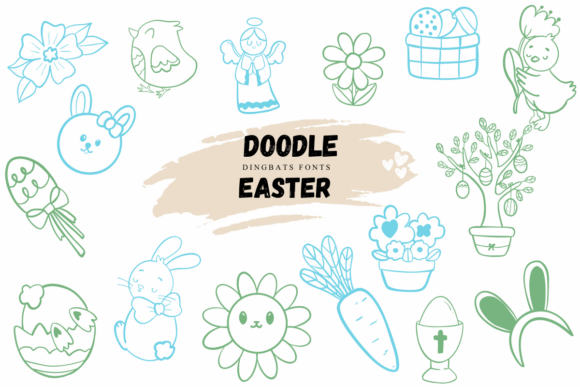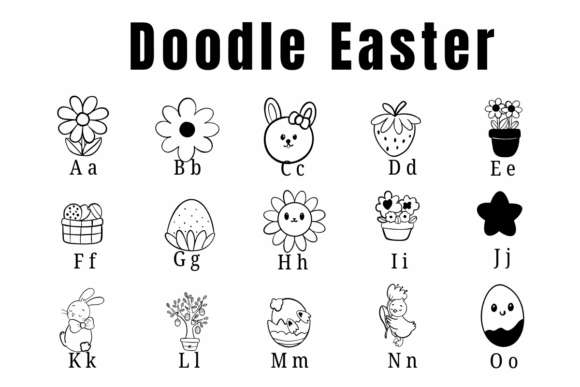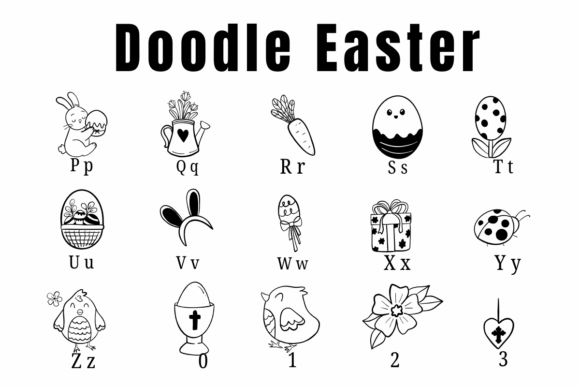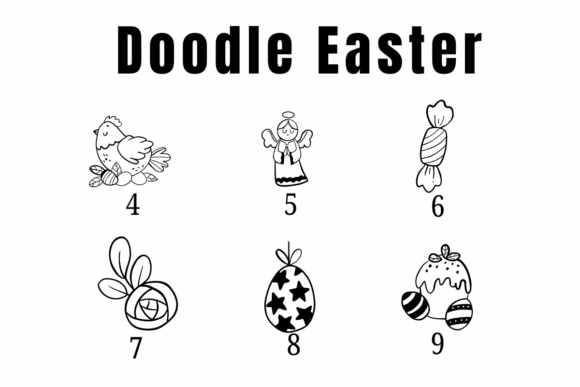
Doodle Easter Font
About the Doodle Easter Font
Discover the charm of Doodle Easter Font. This font is a perfect blend of modern aesthetics and classic appeal. Doodle Easter is a dingbats font with a cute style. This font can enhance your creative projects such as wedding invitations, DIY, crafts, decorations, logos, and many other creative ideas.
Doodle Easter’s playful, hand-drawn aesthetic makes it ideal for projects requiring a lighthearted and approachable feel, such as children’s books, Easter-themed designs, branding for sweet shops or artisan crafts, and whimsical social media graphics. It’s excellent for headlines, short phrases, and logos, adding a touch of charming personality. However, its informal nature makes it unsuitable for body text or applications requiring high readability, such as websites or lengthy documents.
Pairing Doodle Easter effectively requires a contrasting typeface to provide balance. A clean sans-serif like Open Sans or Lato would create a modern contrast, while a classic serif such as Garamond or Playfair Display could offer a touch of sophistication. For a more playful combination, consider a rounded sans-serif like Montserrat or a script font with a similar hand-drawn feel, but with greater legibility for supporting text.
The font’s overall personality is undeniably cheerful and friendly, making it perfect for brands aiming for a warm and inviting image. Avoid using it in contexts that demand seriousness or professionalism.
Doodle Easter Font Usage Examples
Doodle Easter Font Example